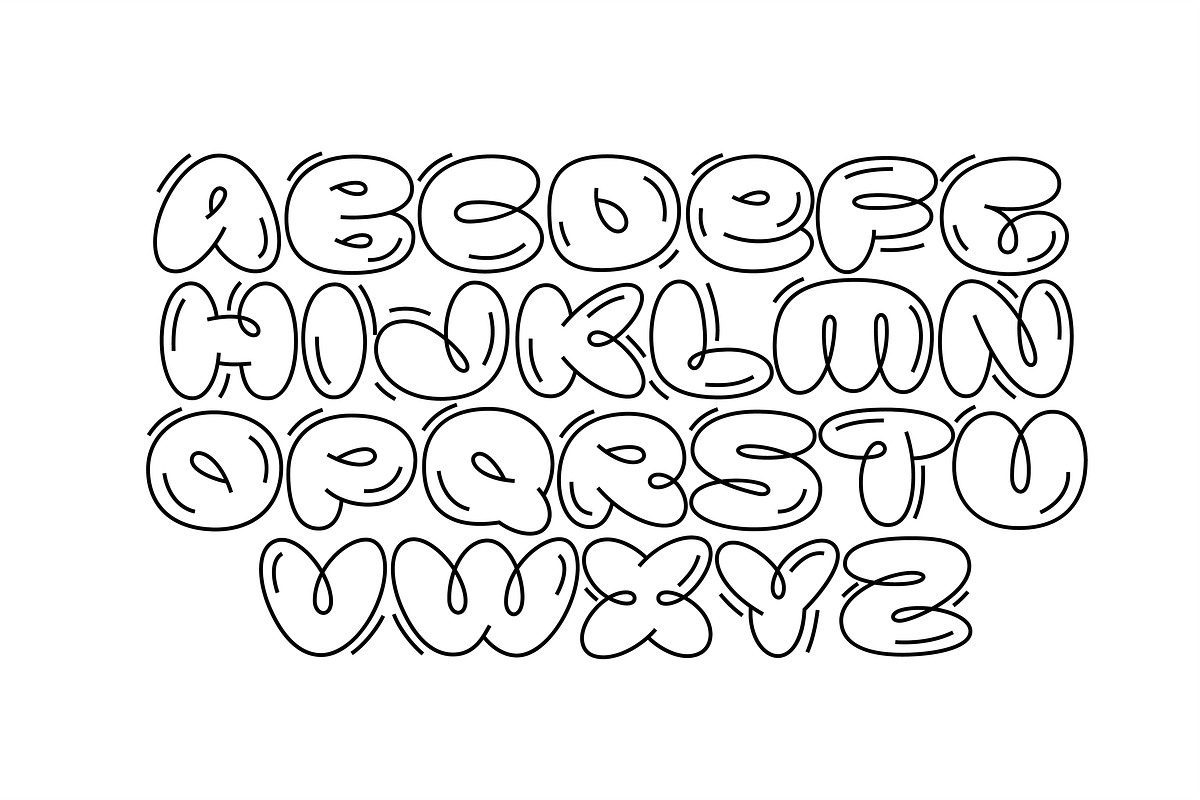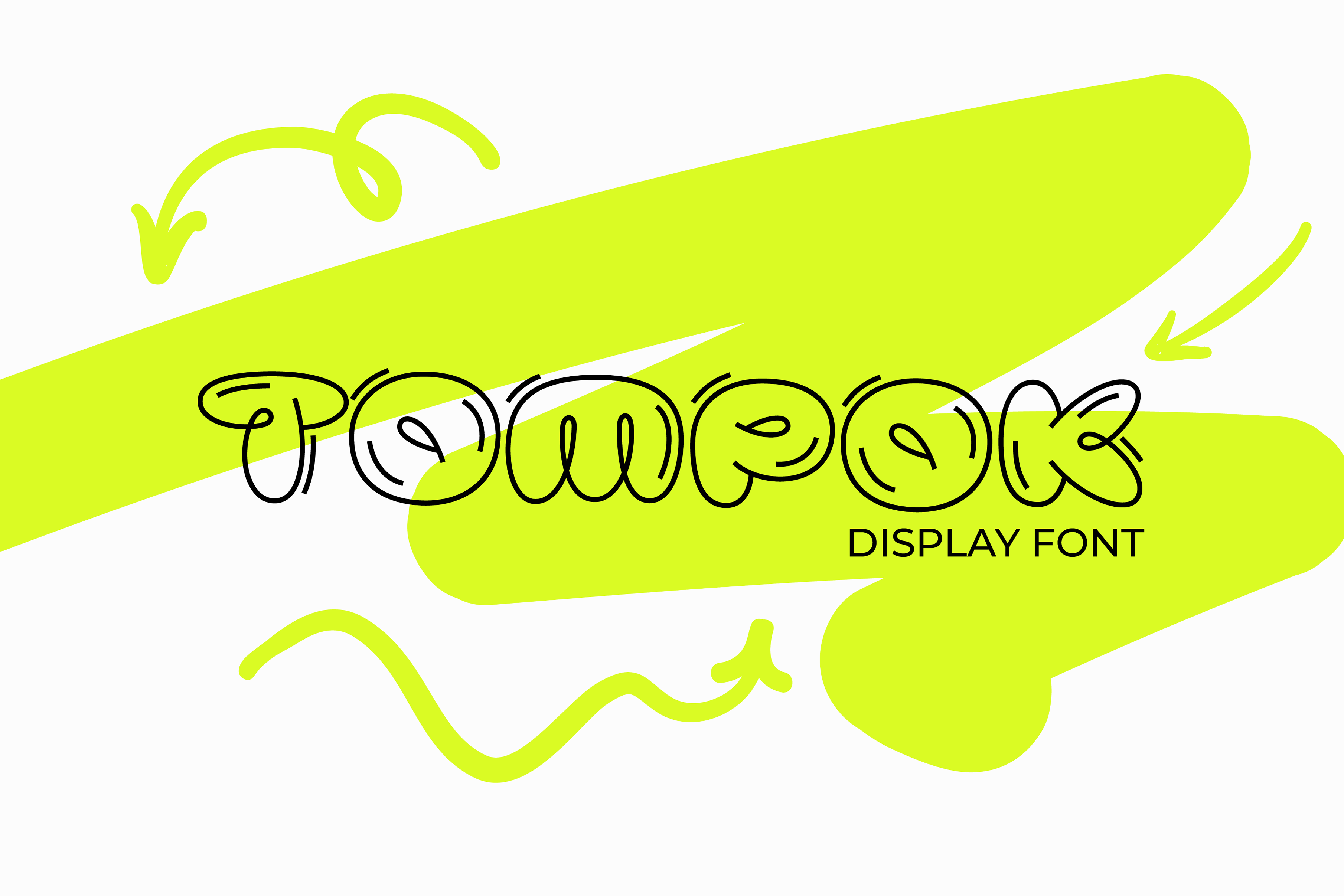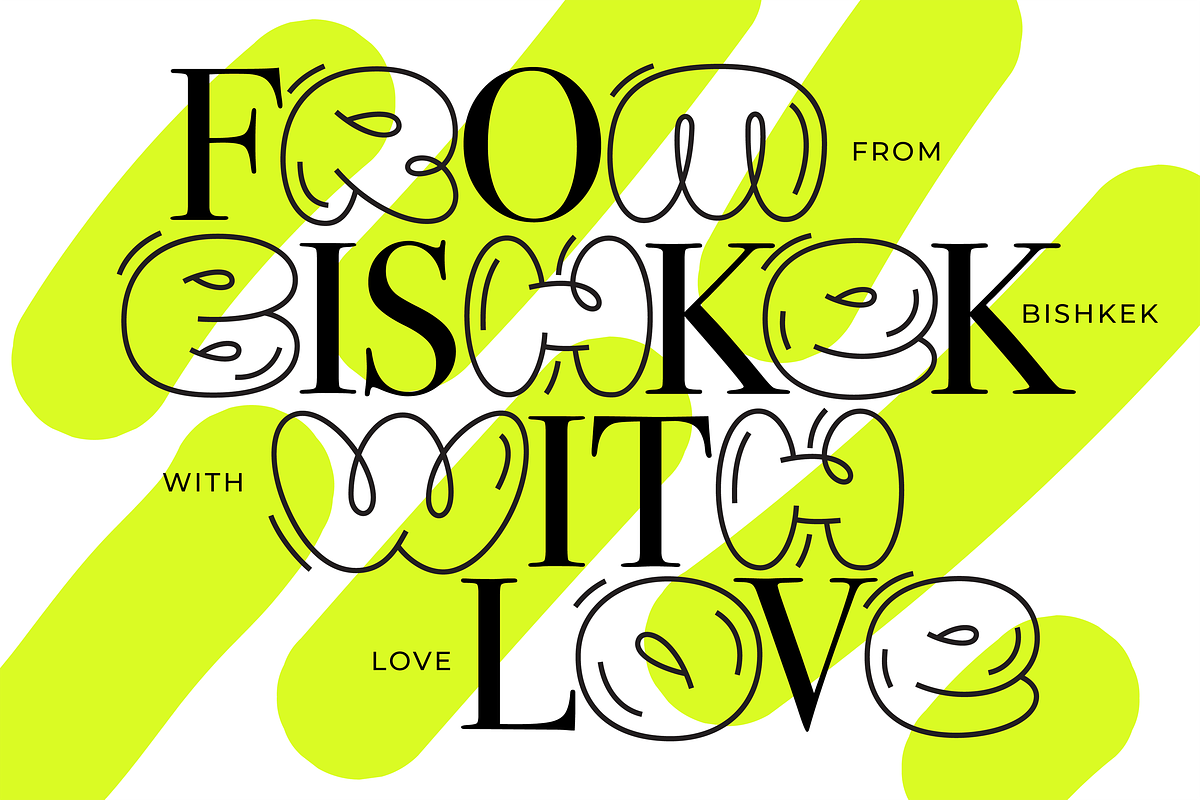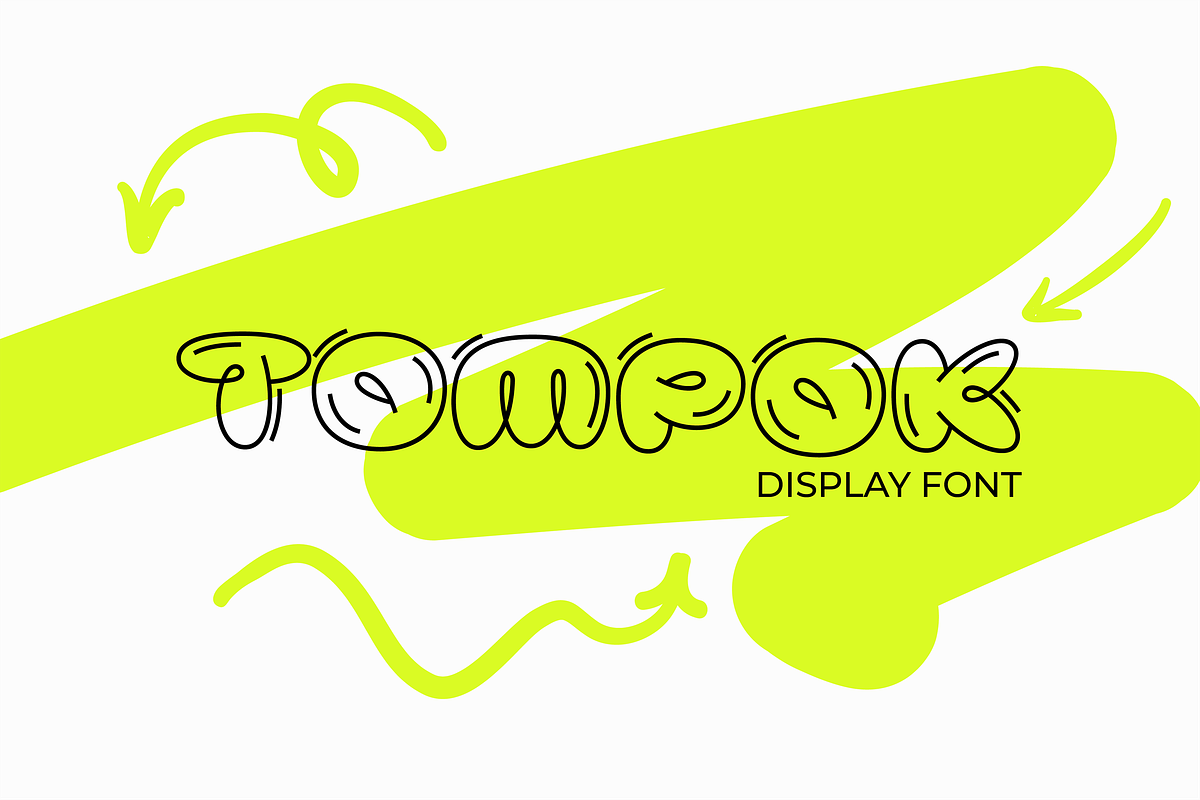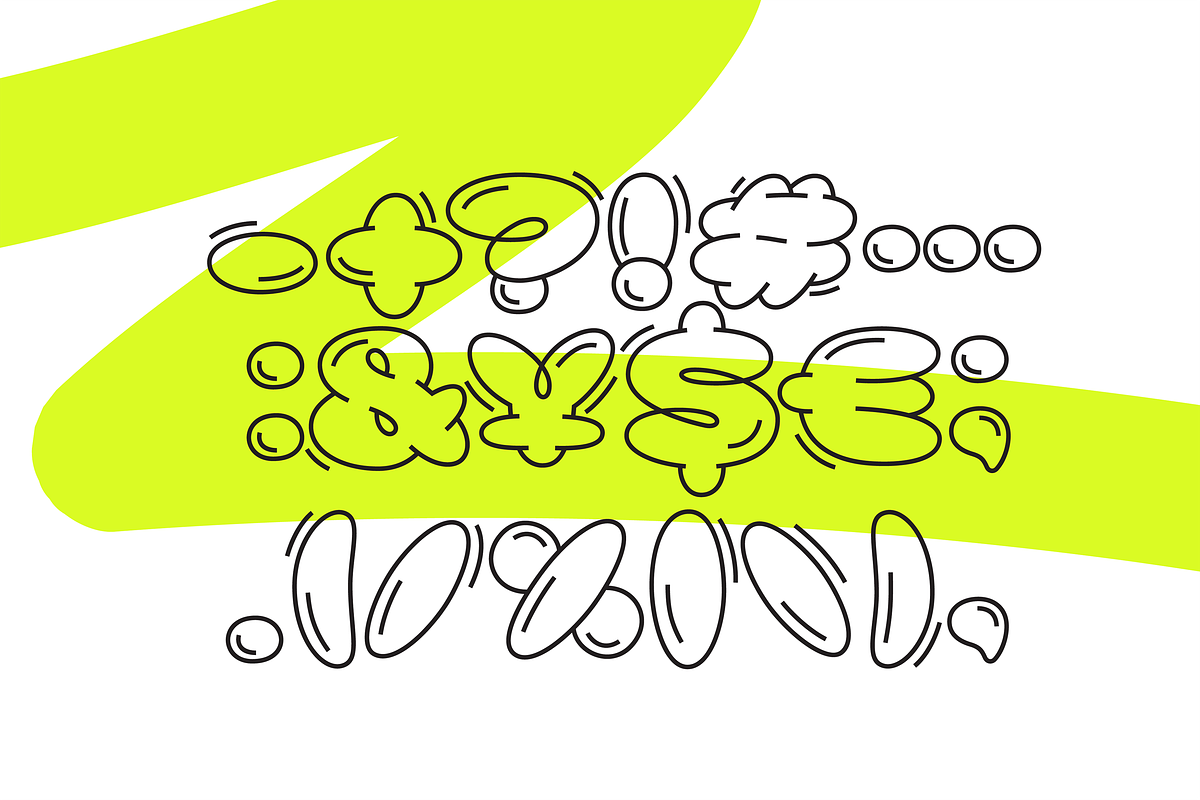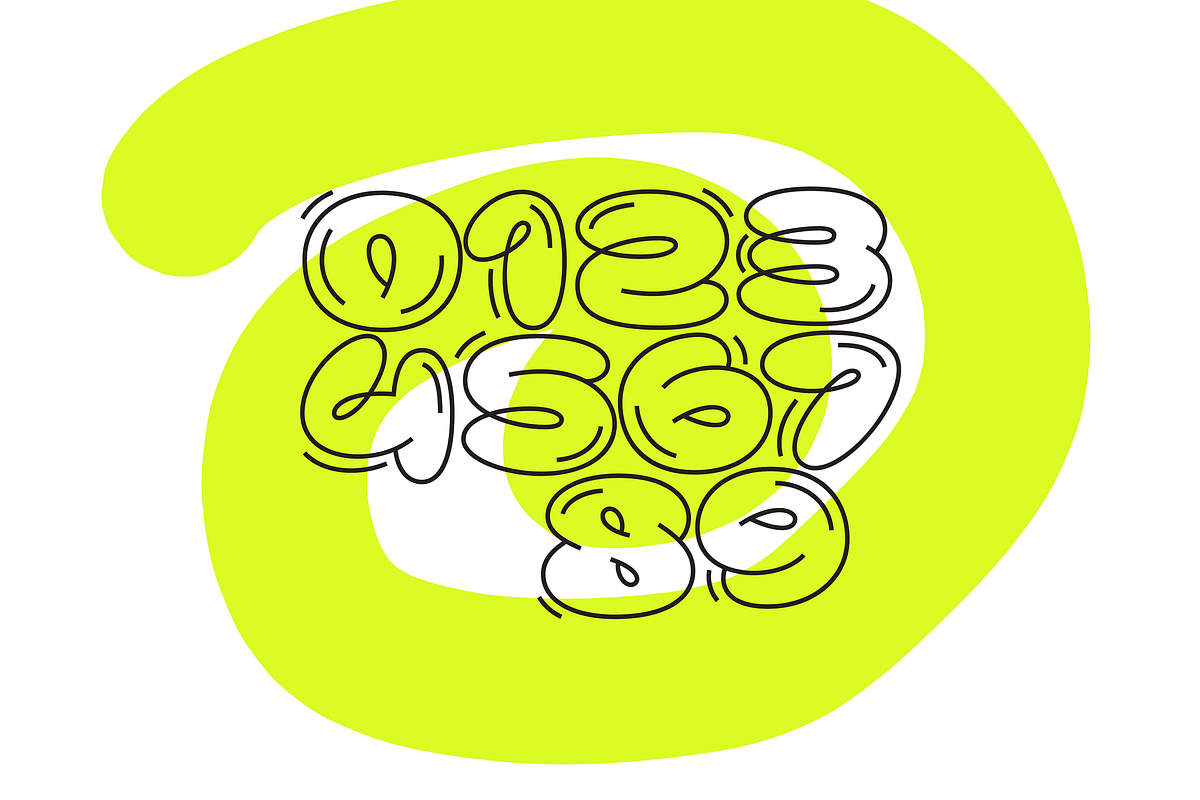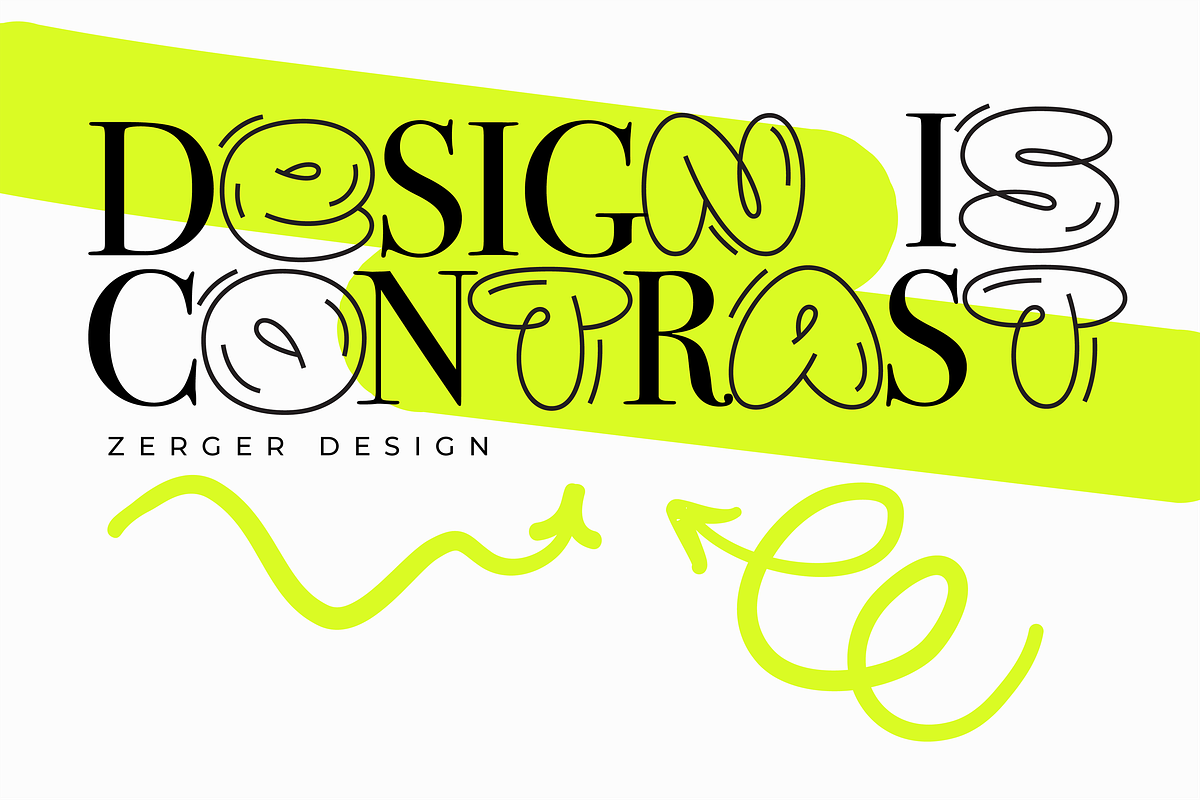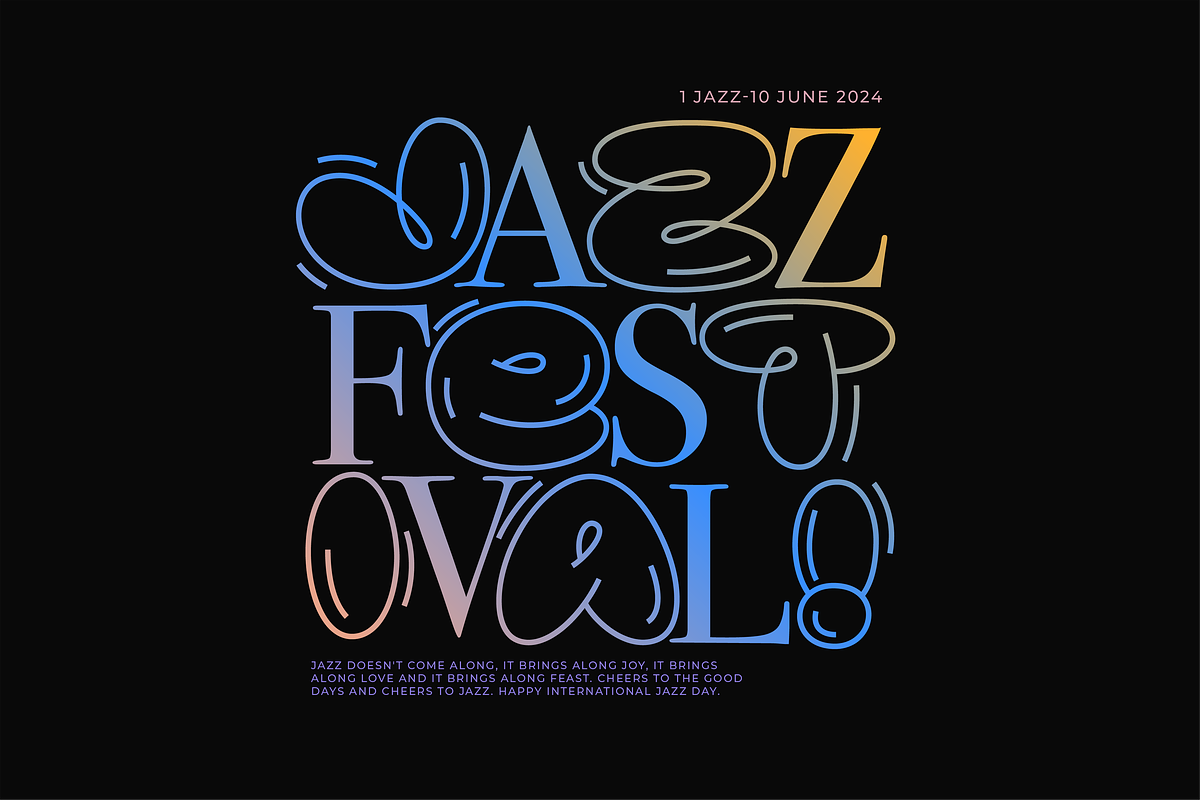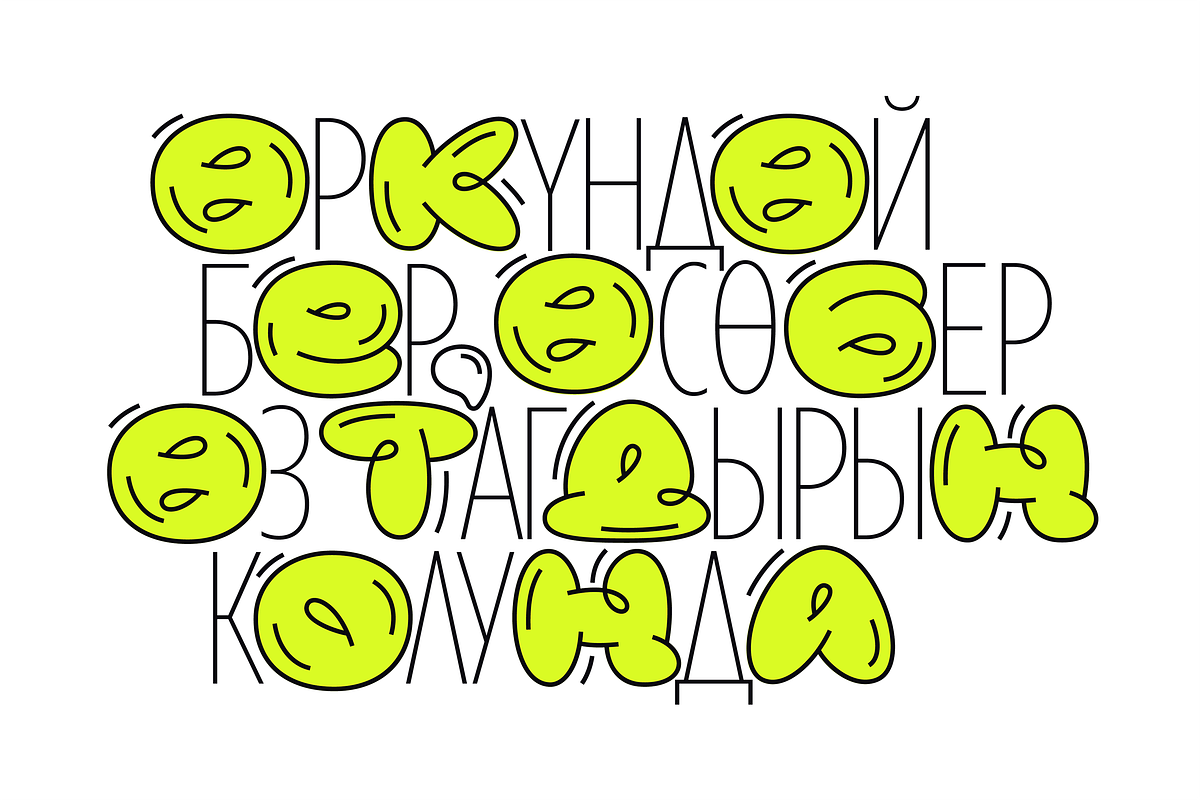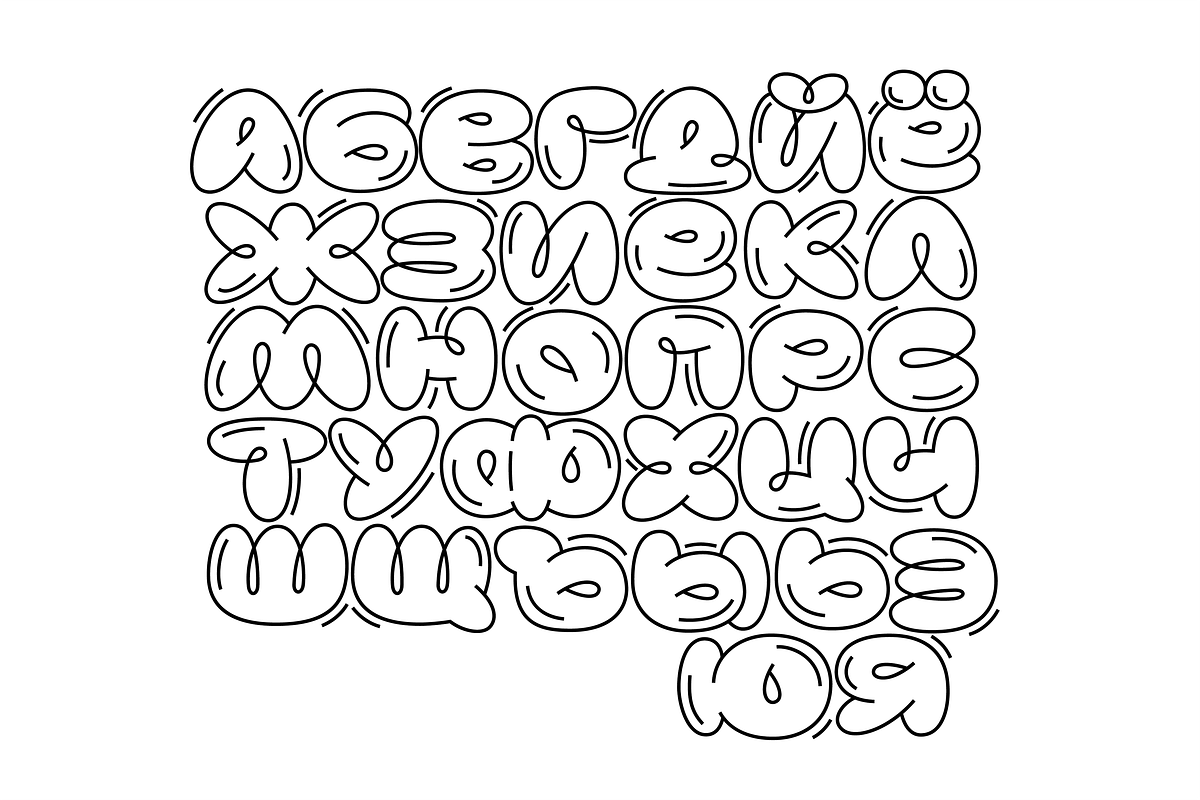
tompok font
Hello! I'm happy to show you my font. Share your favorite quotes daily. Decorate your blog, and stay free! :-) Tompok font combined with a stylish and modern style. This type of font is very suitable for your various needs such as branding projects, logos, social media posts, advertising, product packaging, product design, labels, photographs, watermarks, invitations, stationery and any project created with high quality. readability level. you won't be disappointed if you buy this font! Cyrillic characters are also included in the font, making it versatile for a broader range of design projects.